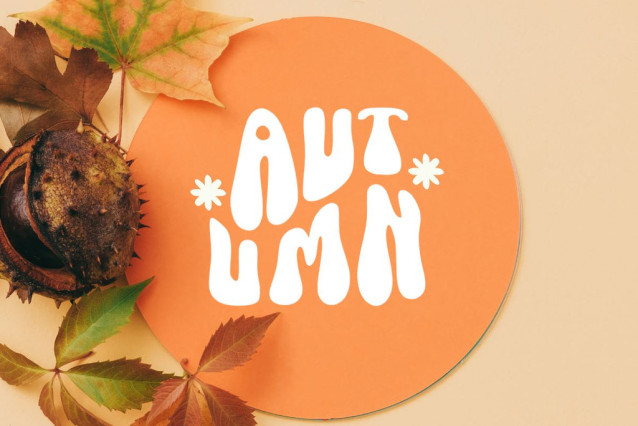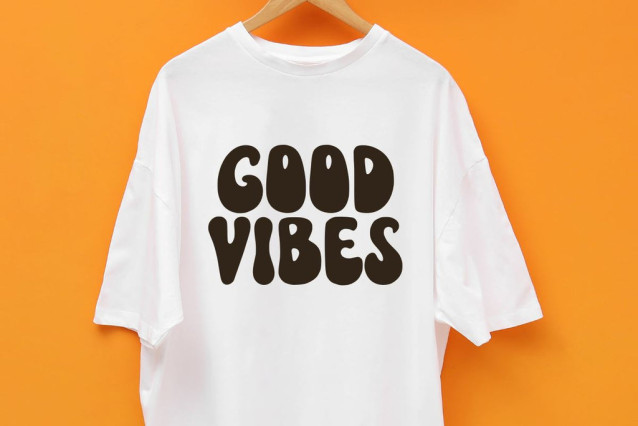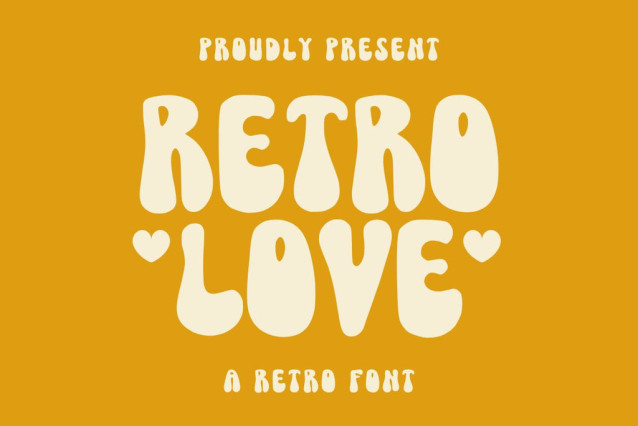
Retro Love Typeface
Retro Love Typeface is a retro groovy display font. This font is perfect for cricut projects, canva, lasers, shirts, stickers, quotes, logos, teachers and more!